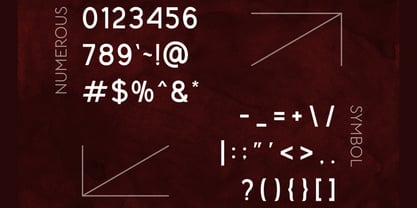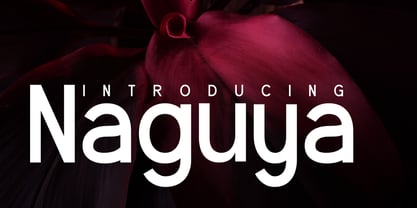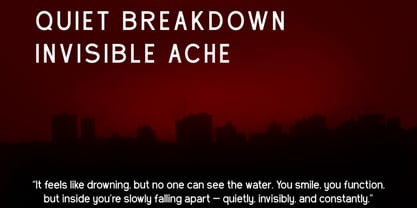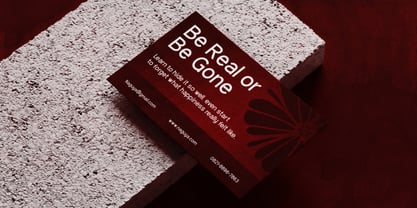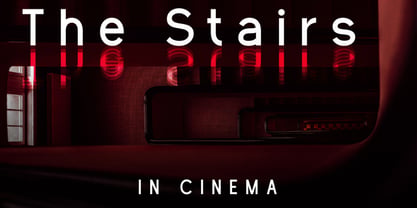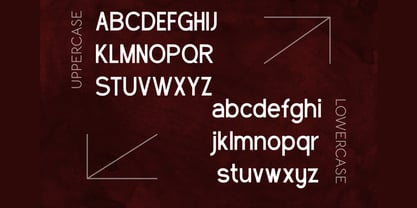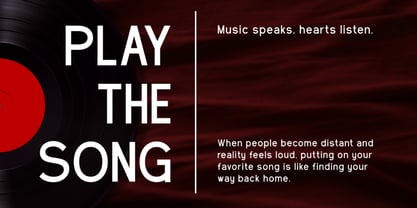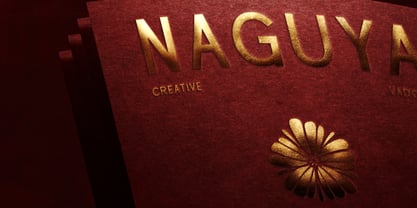
Naguya
by Vadova Std
The Naguya Font Family was designed by and published by Vadova Std. Naguya contains 1 styles. More about this family
Naguya is a modern display sans serif typeface designed with clean geometry, balanced proportions, and smooth rounded curves. It features both uppercase and lowercase characters, numbers, and punctuation, making it versatile for impactful headlines and refined body compositions. The letterforms showcase subtle softness combined with confident structure, creating a contemporary and expressive tone. Naguya is highly relevant for projects that demand clarity, modern aesthetics, and confident visual impact. It works perfectly for branding systems, music-related visuals, album covers, editorial layouts, posters, social media campaigns, and modern digital interfaces. Its strong yet refined character makes it suitable for both creative industries and professional corporate presentations.